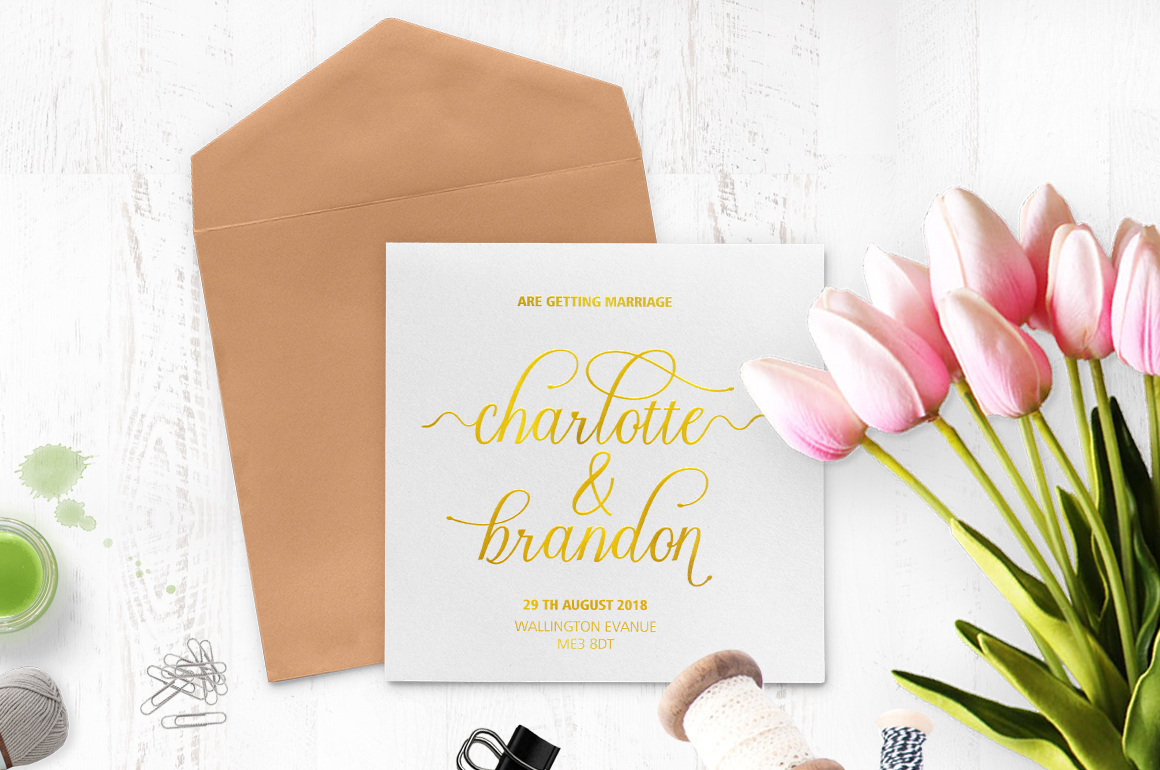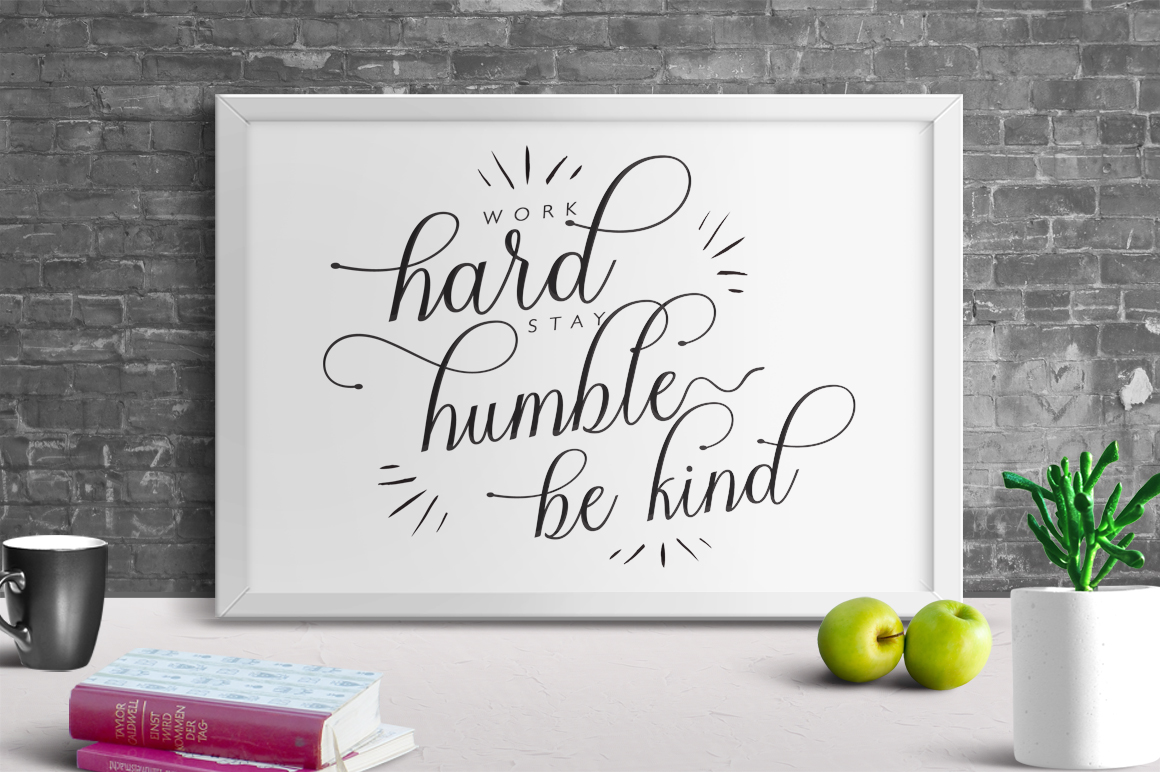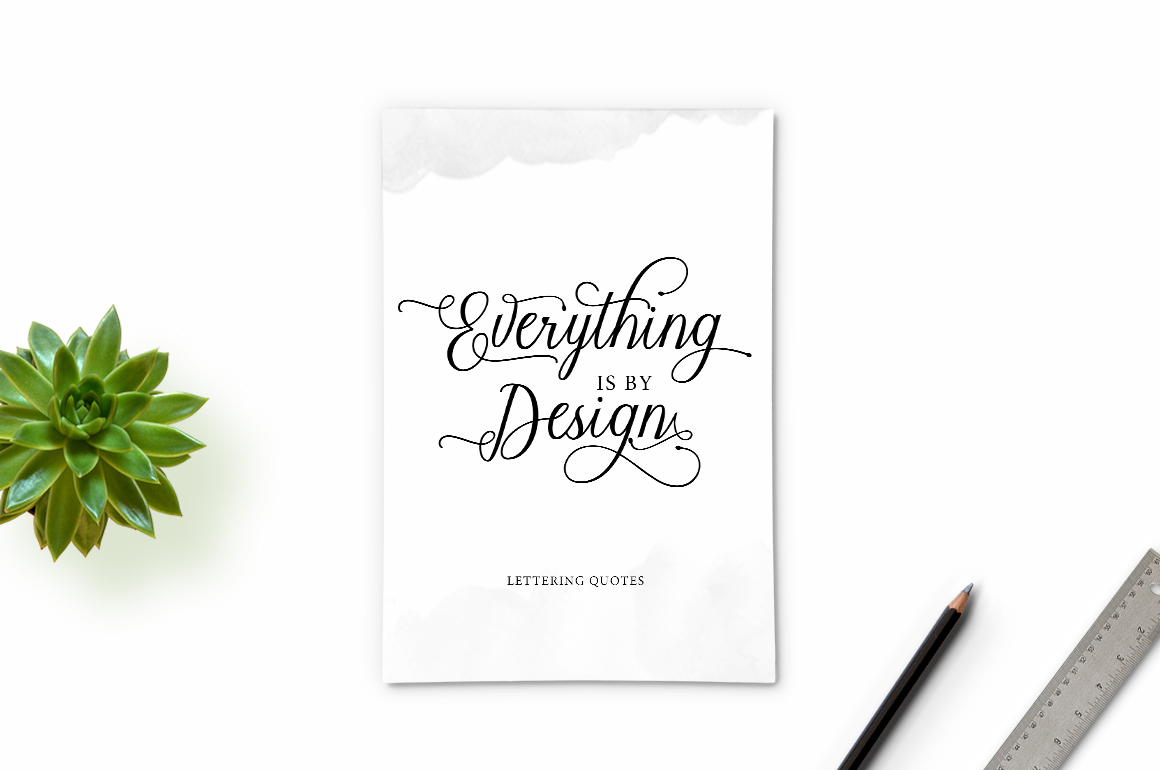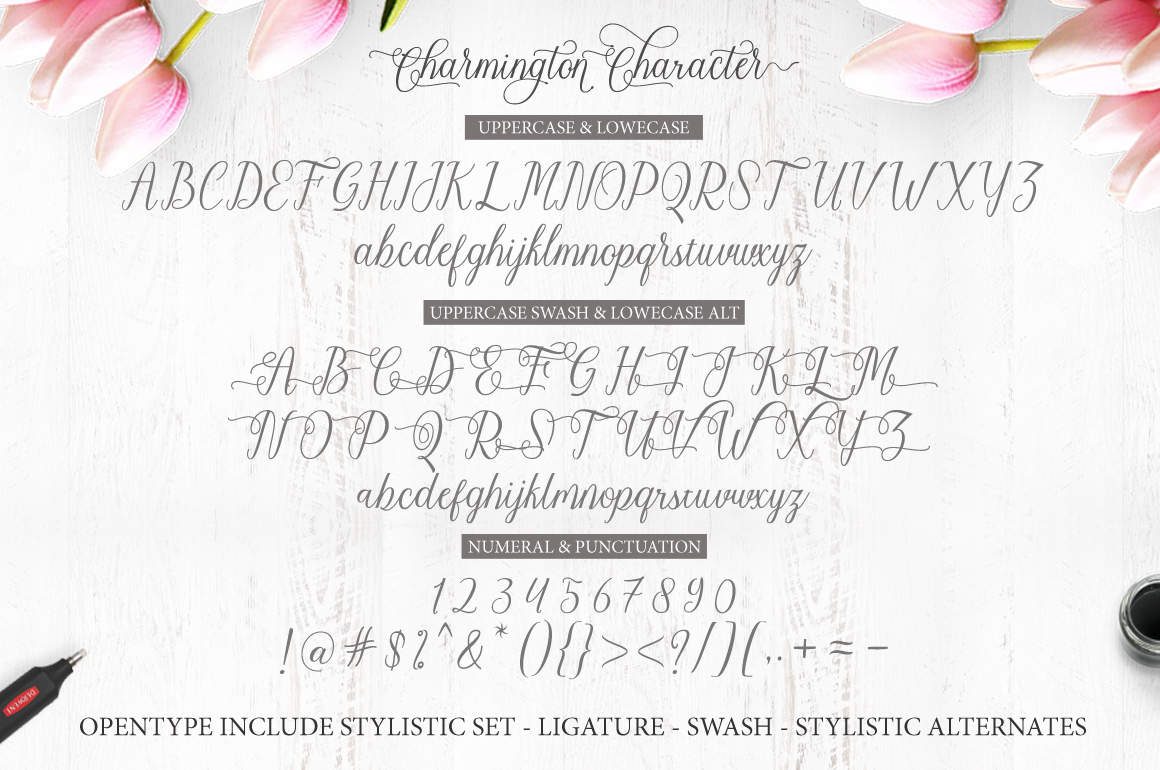
Charmington Font
Charmington is a stunning script font that can complement a large variety of designs. This font is casual and pretty, handcrafted for a large array of uses.
Trendy and natural, Charmington is a font that you don’t want to miss.